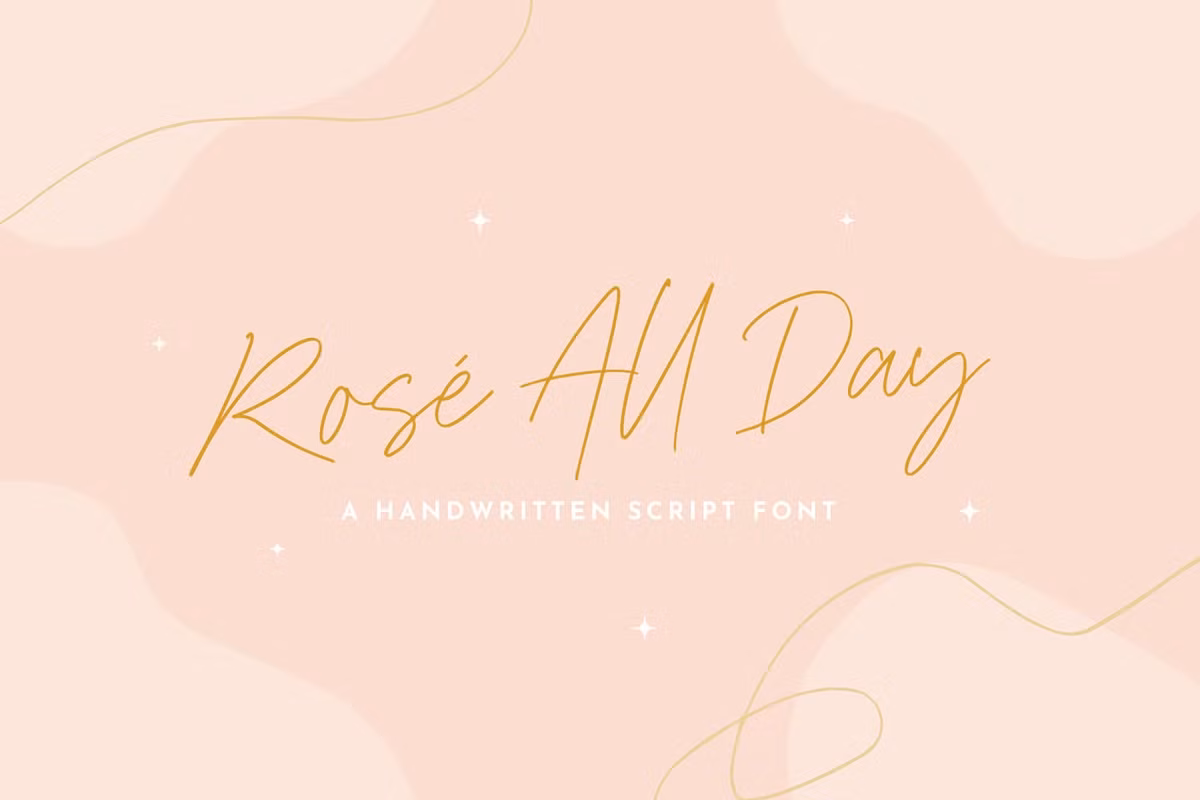
Rosé All Day Script Font Free Download
Rosé All Day Script Font Free Download is a chic, elegant handwritten typeface that exudes sophistication with a splash of playful charm. Perfect for fashion branding, wedding invitations, social media graphics, product packaging, and lifestyle blogs, this font brings a modern, feminine touch to every design.
With its flowing curves and stylish ligatures, Rosé All Day feels both luxurious and effortlessly casual—just like its name suggests. It includes uppercase and lowercase letters, punctuation, alternates, multilingual support, and works seamlessly on both Mac and Windows platforms.